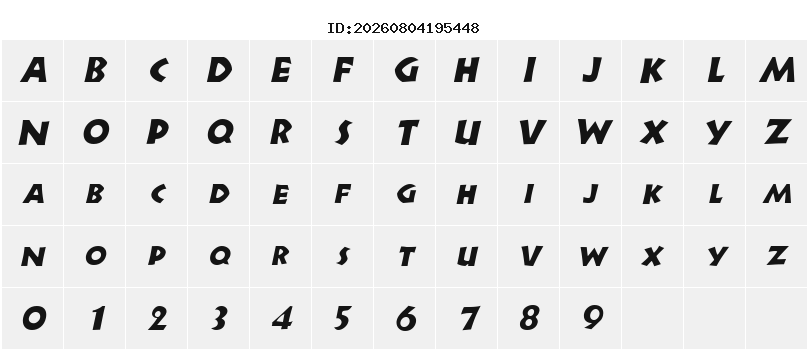
Newell Preview
• Font Name: Newell
• Font Style: Italique
• Font ID: Weatherly Systems, Inc. Newell Italic
• Full Font Name: Newell Italique
• Version: W.S.I. Int'l v1.1 for GSP: 6/20/95
• PostScript Name: NewellItalic
• Character Count: 227
About Newell.ttf
Newell.ttf is a modern, elegant sans-serif font designed for ultimate readability and visual harmony. Perfect for branding, headlines, web design, and print materials.